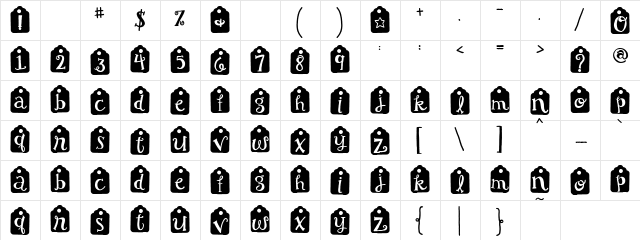
EK Blossom Regular
Design Context for EK Blossom
EK Blossom is a composed and adaptable typeface that performs quietly and consistently across a wide range of design contexts.